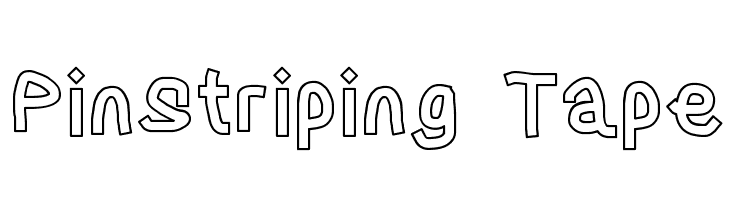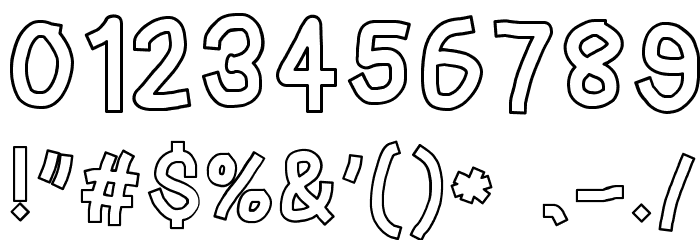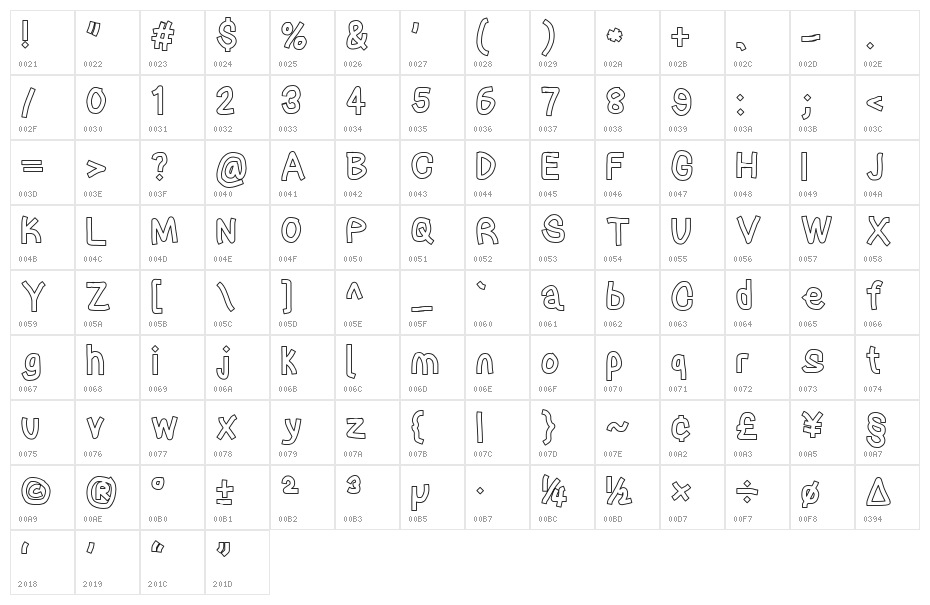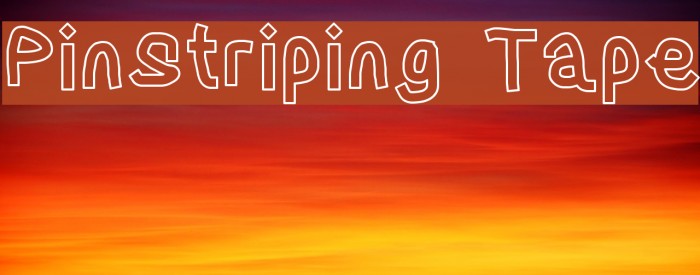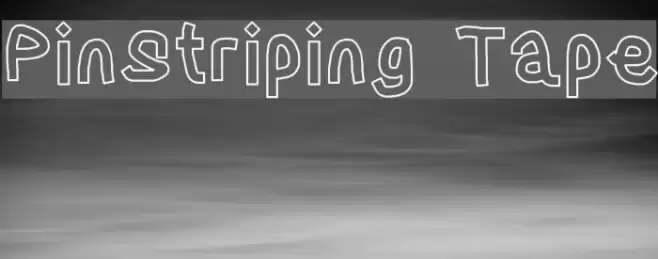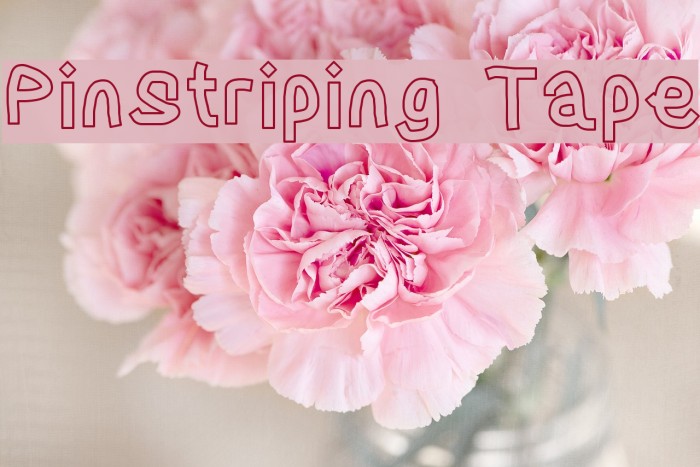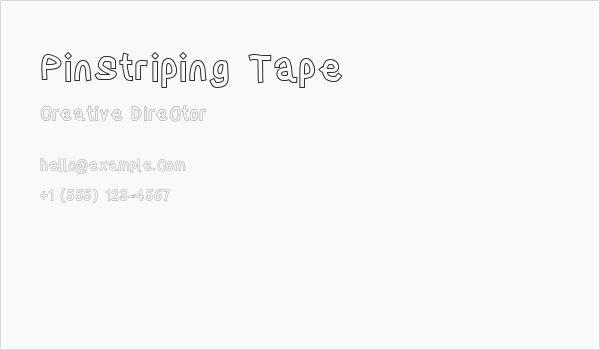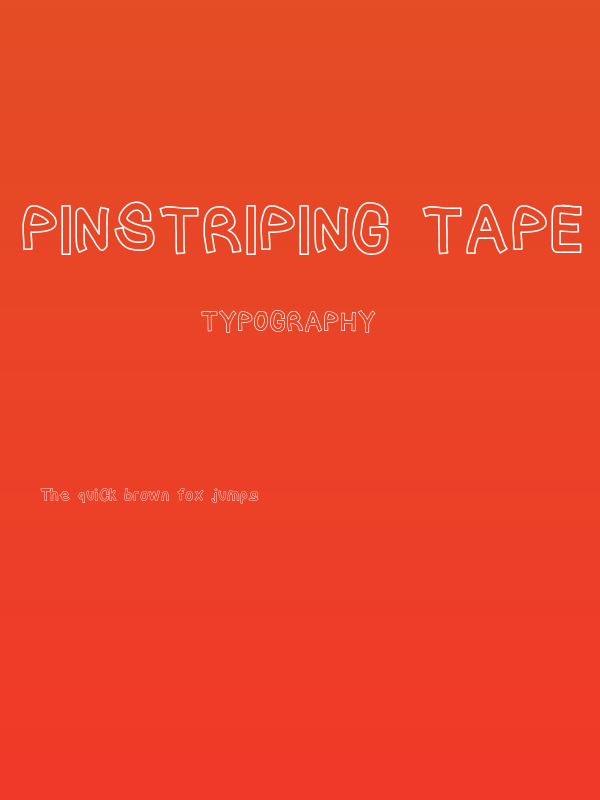
Pinstriping Tape Font
Pinstriping Tape Description
This font features a playful and bold outline style, reminiscent of hand-drawn pinstriping. The characters are uppercase and lowercase letters, numbers, and a variety of special symbols. Each character is outlined, giving it a hollow appearance, which adds a unique and artistic flair. The font's design is casual and informal, making it suitable for creative projects that require a fun and engaging look. The strokes are consistent in width, and the overall appearance is clean and easy to read, despite the decorative nature of the outlines.
| Proposed Projects | Ideal for children's book covers, playful branding, posters, and creative invitations. |